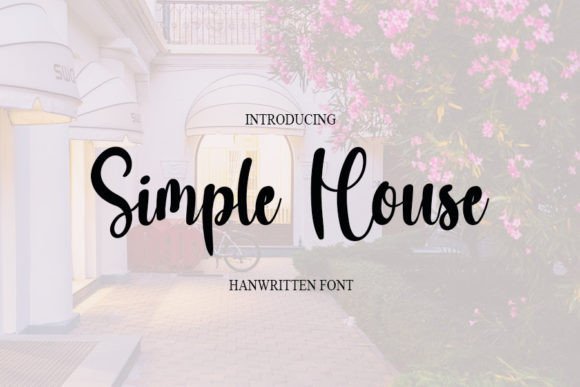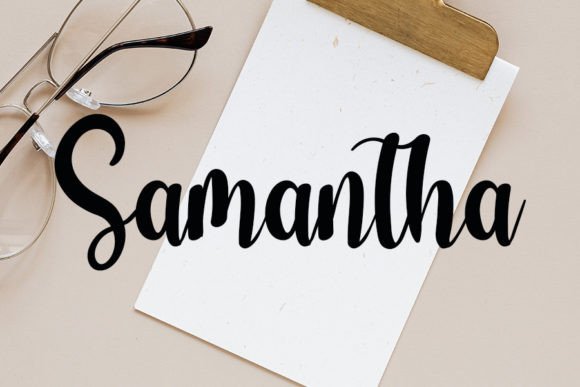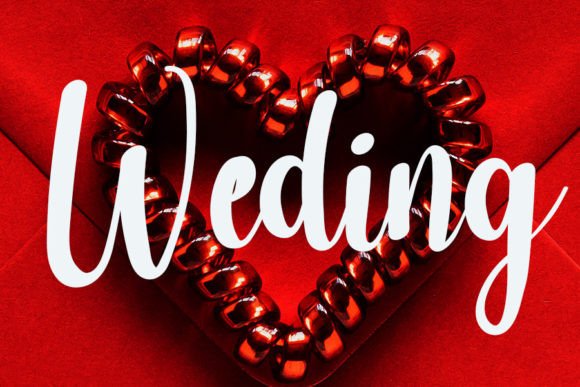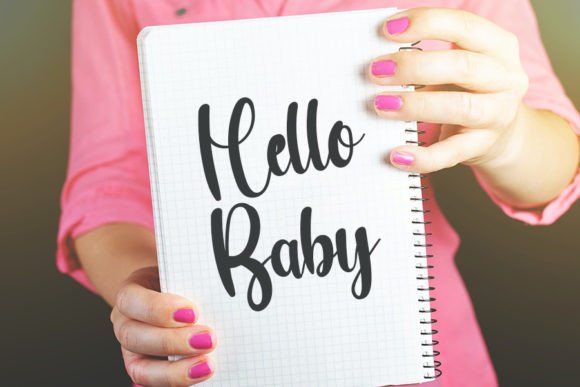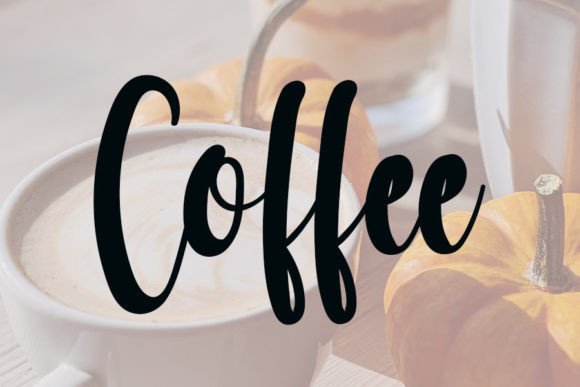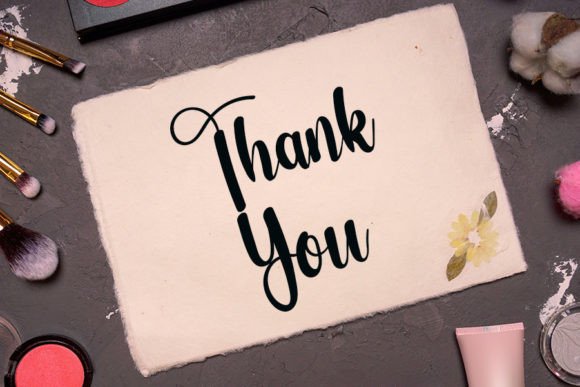
Simple House Font
About Simple House Font
“Simple House” is a cool handwritten font that blends a modern vibe with clean and classic calligraphy-inspired forms. This font strikes a balance between thin and thick strokes, offering a versatile and varied style that is designed to enhance the beauty of your design projects.
The charm of “Simple House” lies in its ability to provide a contemporary and stylish aesthetic while maintaining a timeless and classic quality. Each character is thoughtfully crafted to exude a sense of balance and variation, making it an ideal choice for projects where you want to create a visually appealing and sophisticated impression. Whether you’re working on digital or print materials, “Simple House” offers a versatile and stylish script that adds a touch of elegance to your content.
For branding, product designs, promotional materials, and a wide range of design applications, “Simple House” provides the creative freedom to make your projects stand out. Its clean and modern handwritten style can enhance the visual appeal of your designs and effectively communicate your message to your audience.
In summary, “Simple House” is a valuable font that brings a modern and clean aesthetic to your creative work. Its balanced and varied style, inspired by classic calligraphy, makes it suitable for a variety of applications, and its ability to convey contemporary elegance sets it apart. With “Simple House” in your font collection, your design projects will exude a sense of modern style and sophistication that leaves a lasting impression.